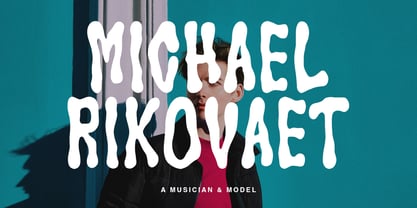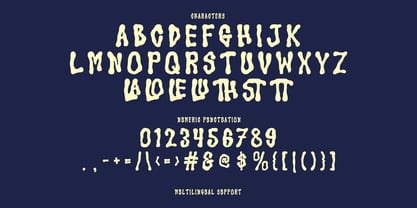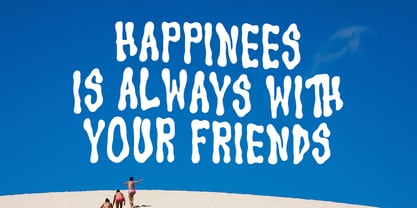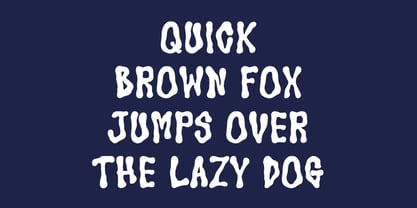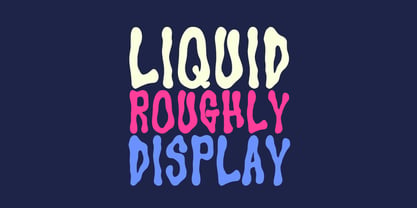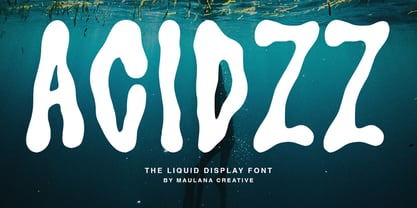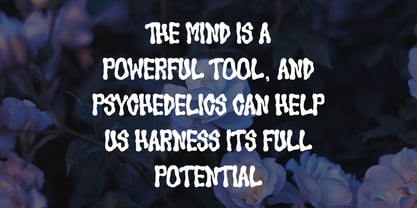
MC Acidzz
by Maulana Creative
The MC Acidzz Font Family was designed by Gilang Maulana and published by Maulana Creative. MC Acidzz contains 1 styles. More about this family
Acidzz is a liquid cute display handwritten font. With bold stroke, fun character with a bit of ligatures. To give you an extra creative work. Acidzz font support multilingual more than 100+ language. This font is good for logo design, Social media, Movie Titles, Books Titles, a short text even a long text letter and good for your secondary text font with sans or serif. Make a stunning work with Acidzz font.
Designers: Gilang Maulana
Foundry: Maulana Creative